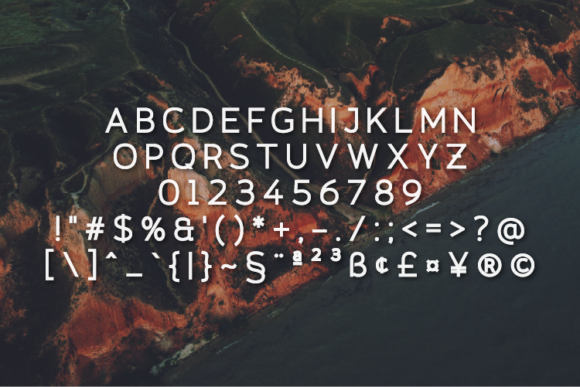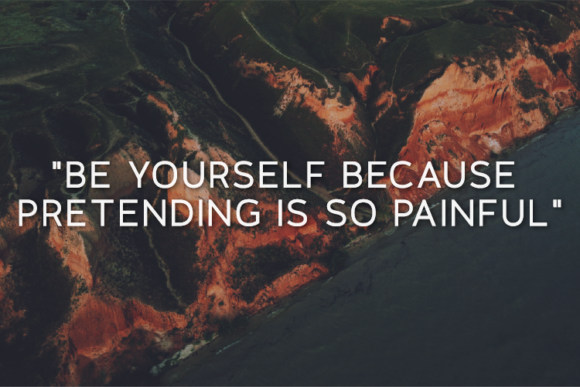
Introduction to Relathive Font
As designers, we’ve all been there – staring at a blank canvas, trying to bring our creative vision to life. It’s the moment when everything clicks, and our ideas start flowing. But, what if the right design resource was just a click away? Enter the Relathive Font, a stunning sans serif font that’s about to revolutionize your creative project.
With its minimal and neat aesthetic, Relathive Font is the perfect addition to any design. Whether you’re working on a free download project or a high-quality commercial design, this versatile font is sure to elevate your work. Its transparent background makes it easy to pair with any background, giving you endless possibilities for creative expression.
Key Features of Relathive Font
- Unique, hand-crafted design ideal for creative projects, offering a distinctive touch to any visual content.
- Perfect design resource for graphic designers, digital artists, and anyone looking to add a creative twist to their work.
- Designed with a focus on legibility and aesthetic appeal, making it suitable for various applications, from print materials to digital displays.
Honest Review: Relathive Font
As a designer, I’m always on the lookout for high-quality design resources to enhance my creative projects. The Relathive Font caught my attention with its unique and elegant style, making it a great addition to any design project.
- The font may not be suitable for all design projects, especially those that require a bold and playful tone.
Overall, I’m impressed with the Relathive Font. It’s a great design resource that can add a touch of elegance to any creative project. While it may have some limitations, I believe it’s a valuable addition to any designer’s toolkit.
The Relathive Font is suitable for a wide range of creative projects, including logos, brochures, and social media graphics. Its high-quality design and transparent background option make it an ideal choice for designers who want to create visually appealing and professional-looking designs.